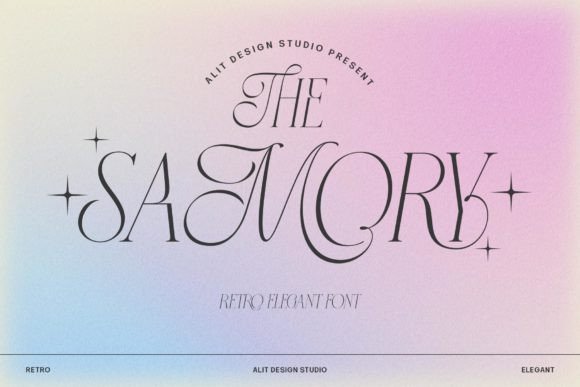
Discover Samory Font - A Stroke of Sophistication for Your Creative Endeavors
In a world where visual appeal reigns supreme, your designs have the power to captivate and inspire. Unleash your creativity with Samory Font, a display font that exudes elegance and refinement like no other.
Samory Font: The Epitome of Sophistication and Charm
With its meticulously crafted curves and refined details, Samory commands attention with its luxurious appeal. It's the perfect font for creating modern, chic designs that leave a lasting impression. Whether you're designing logos, branding materials, or social media content, Samory adds a touch of sophistication that sets your work apart.
Fashionable Flair for Your Creative Projects
Samory's fashionable touch adds a captivating edge to your designs. It's specially designed to bring a sense of luxury and elegance to feminine projects. Imagine your designs adorned with the graceful strokes of Samory, evoking a sense of timeless charm.
Perfect for Creating Modern, Chic Designs
If you're seeking a font that embodies the essence of modern chic, Samory is your perfect match. Its clean lines and contemporary aesthetic make it an ideal choice for creating designs that resonate with the latest trends. From sleek logos to eye-catching social media posts, Samory elevates your designs to new heights of sophistication.
The Ideal Font for Luxury and Elegance
Samory's luxurious aura makes it the perfect font for projects that demand a touch of grandeur. Whether you're designing wedding invitations, high-end fashion catalogs, or upscale branding materials, Samory adds a touch of opulence that exudes class and refinement.
Unlock Your Creative Potential with Samory
Step into the realm of boundless creativity with Samory, the font that empowers you to craft designs that evoke emotion, convey messages, and leave a lasting impact. Its versatility and charm make it a must-have font for designers seeking to create truly exceptional work.